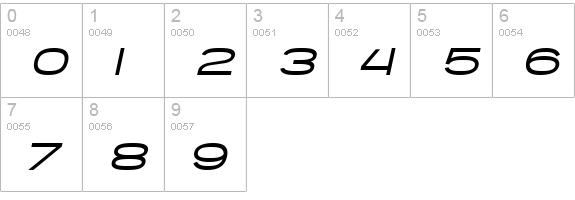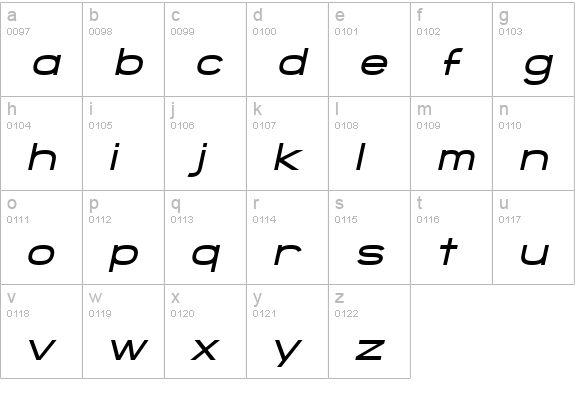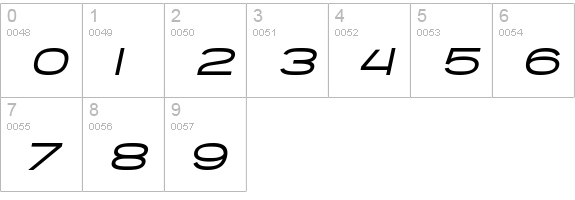
SF Grandezza Medium Oblique is a balanced, medium-weight, italic variant in the SF typeface family \xE2\x80\x94 well suited to sub-headlines, navigation, and balanced editorial work.
SF Grandezza Medium Oblique font is a stunning typeface that combines elegance and versatility. Its slanted style adds a touch of modernity and sophistication to any design project. Whether you're creating a logo, designing a website, or working on a print publication, this font is sure to make a lasting impression. With its medium weight, SF Grandezza Medium Oblique strikes the perfect balance between boldness and subtlety. It is ideal for headlines, subheadings, and body text, ensuring that your message is conveyed with clarity and impact. The oblique angle adds a dynamic element to the font, making it visually captivating and engaging. One of the best features of SF Grandezza Medium Oblique font is that it is freely available to download at FontsMarket.com. This means that you can access this beautiful typeface without any cost, allowing you to enhance your designs without breaking the bank. Whether you're a professional designer or a casual enthusiast, having access to high-quality fonts like SF Grandezza Medium Oblique can truly elevate your creative projects. The characters in SF Grandezza Medium Oblique font are meticulously crafted, with clean lines and smooth curves. Each letter has a unique personality, adding depth and character to your text. The font is highly legible, ensuring that your audience can easily read and understand your message. SF Grandezza Medium Oblique font is designed with versatility in mind. It pairs well with both serif and sans-serif fonts, making it easy to create harmonious typography combinations. Whether you're going for a modern, minimalist look or a more traditional aesthetic, this font can adapt to your design needs. In conclusion, SF Grandezza Medium Oblique font is a powerful and visually striking typeface that is sure to elevate your design projects. Its free availability at FontsMarket.com makes it accessible to designers of all levels, allowing you to create stunning visuals without any financial constraints. Download SF Grandezza Medium Oblique font today and unleash your creativity.